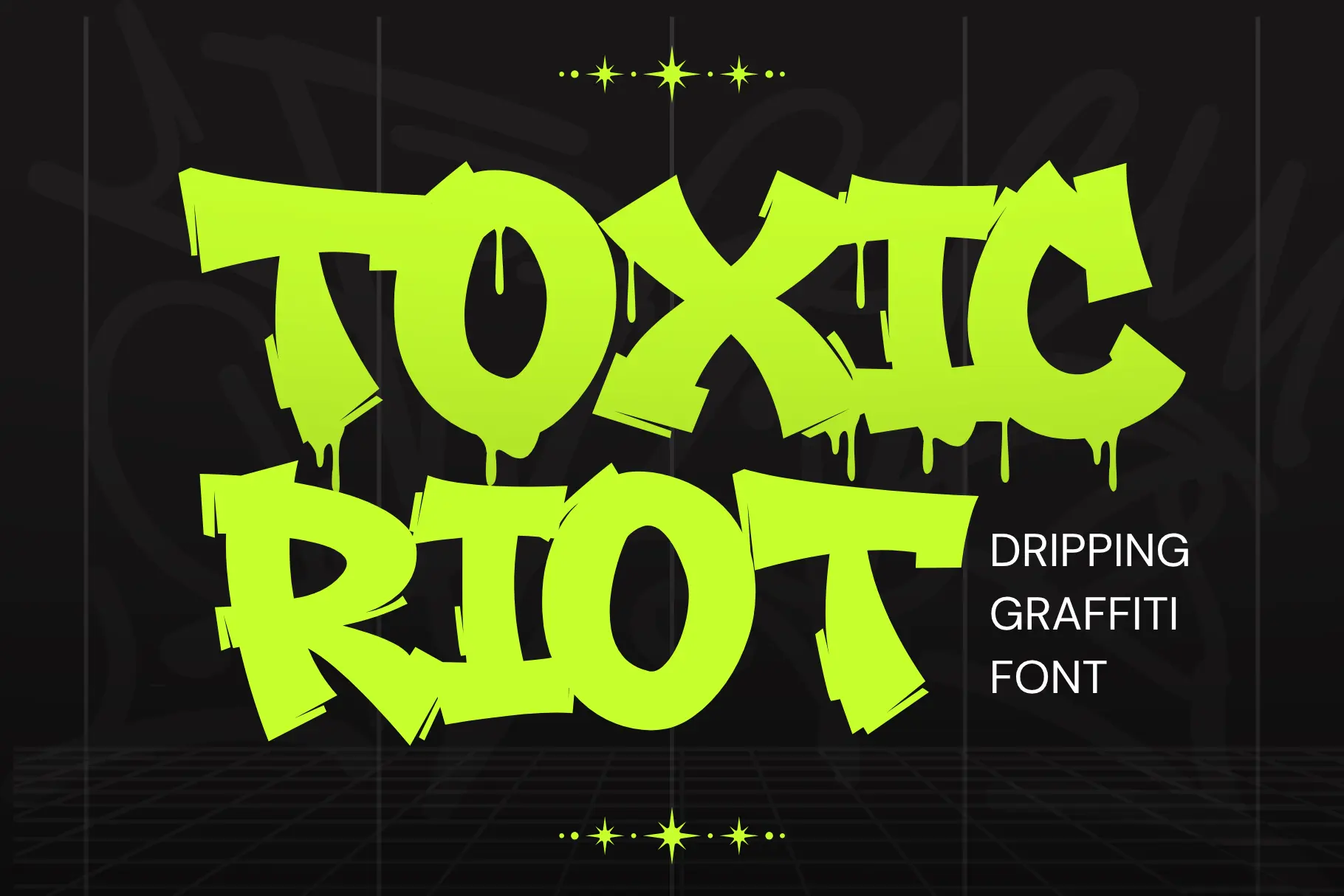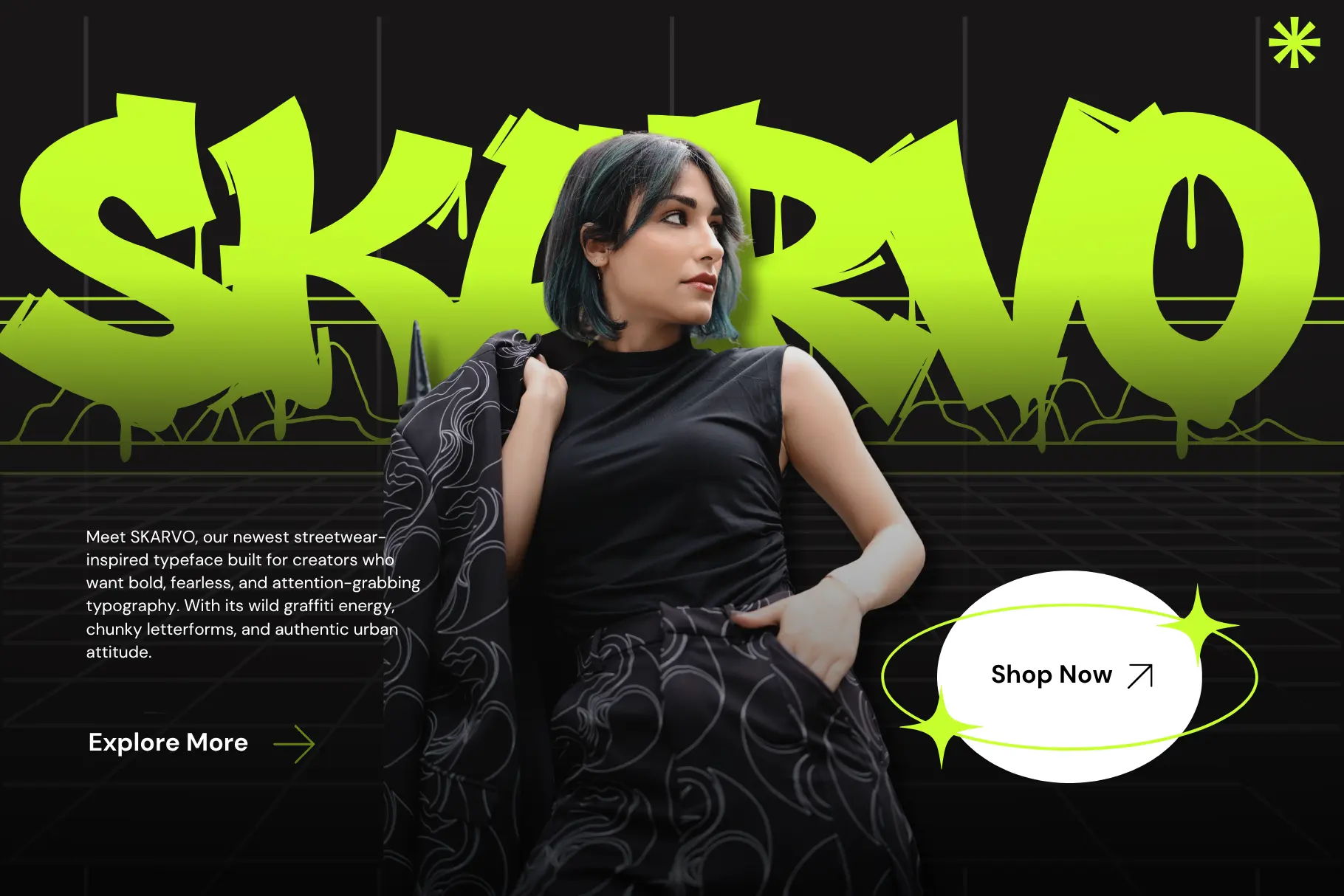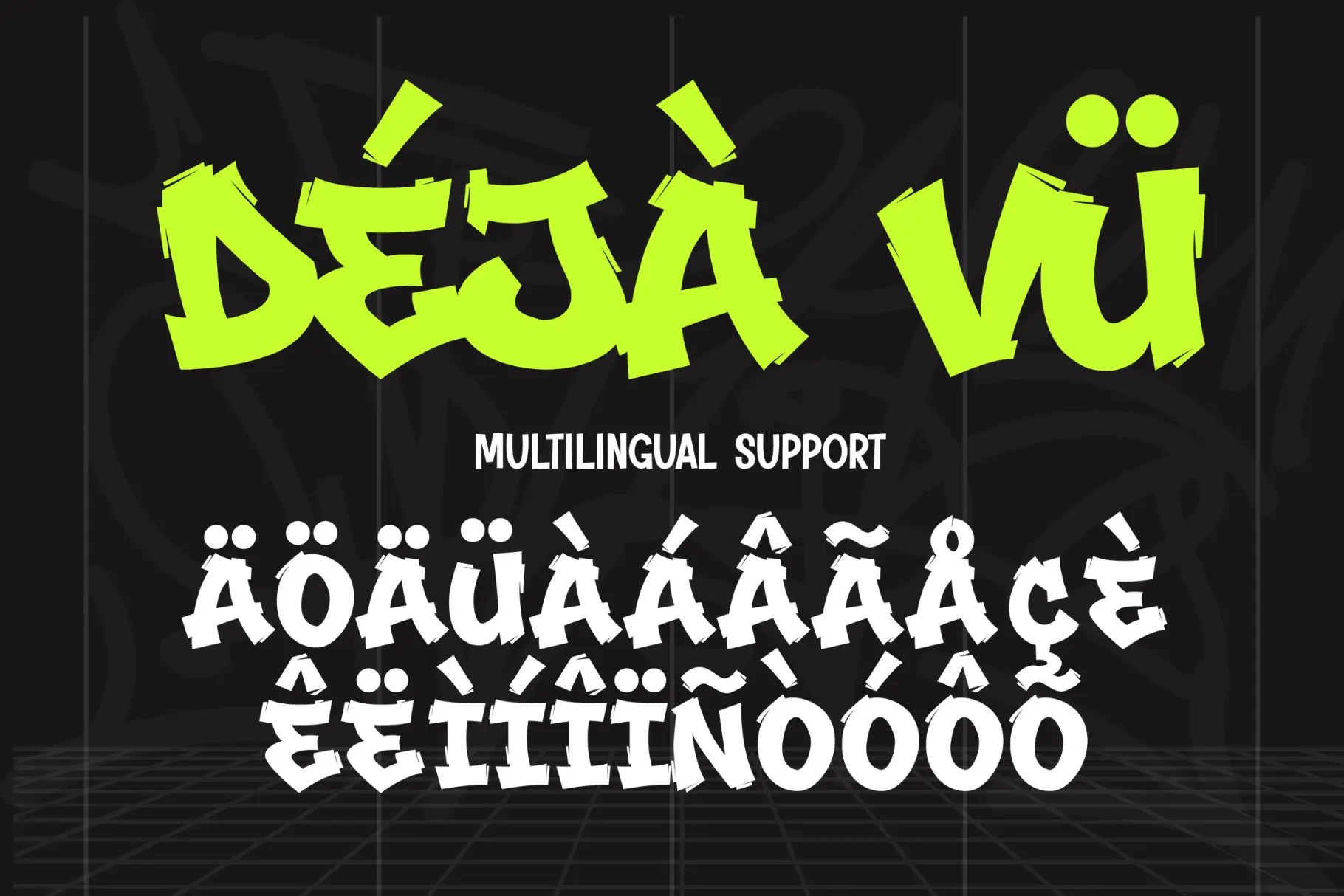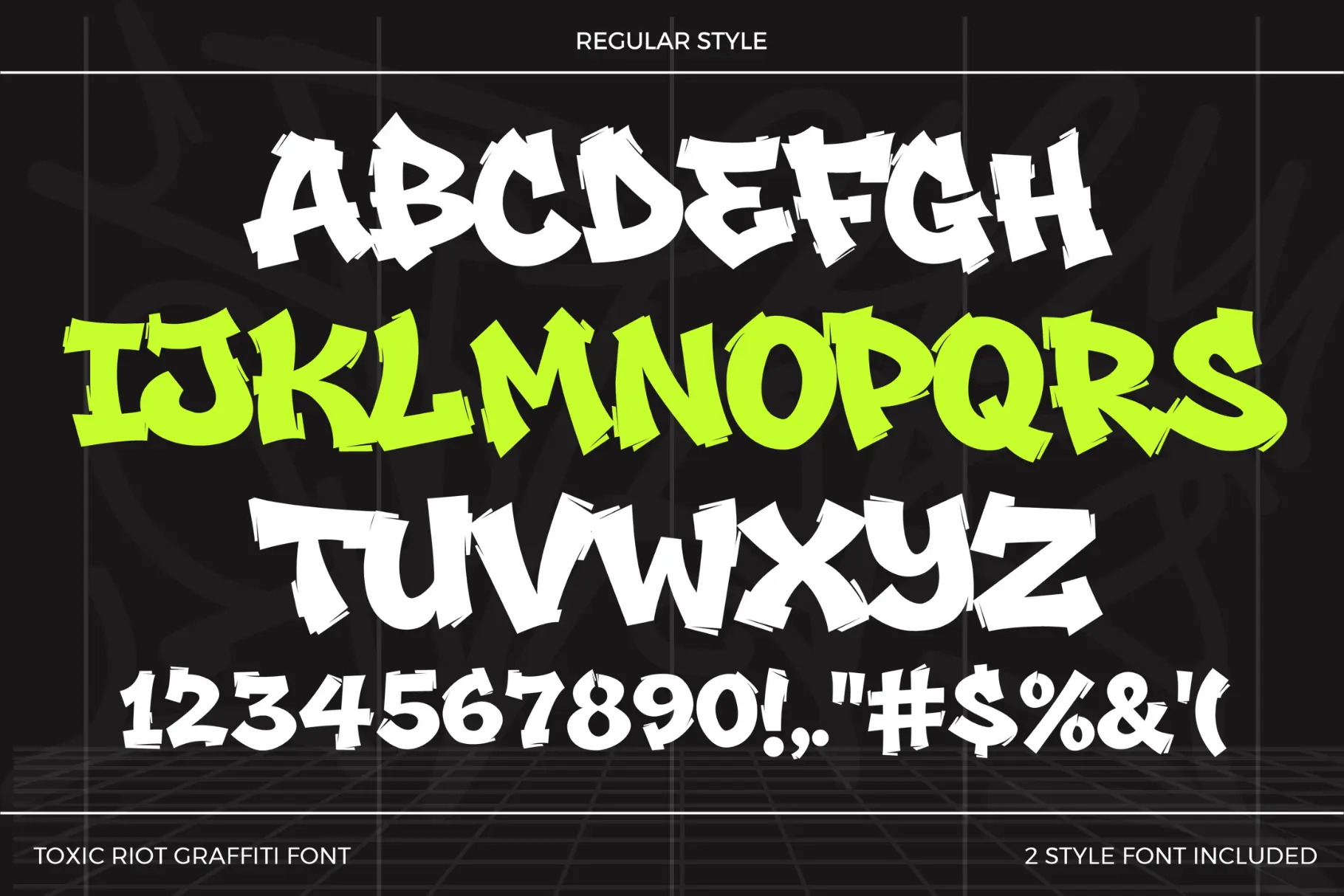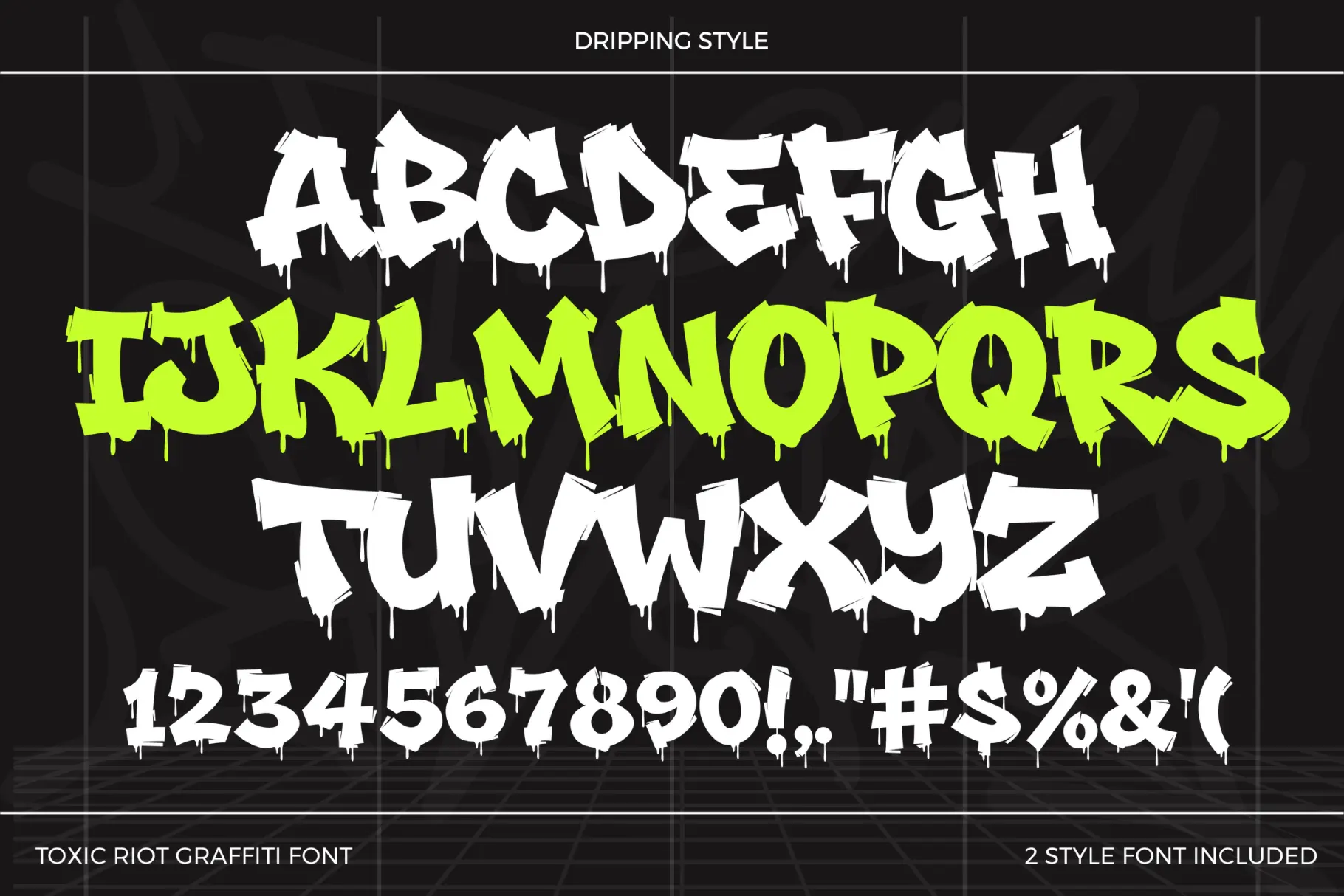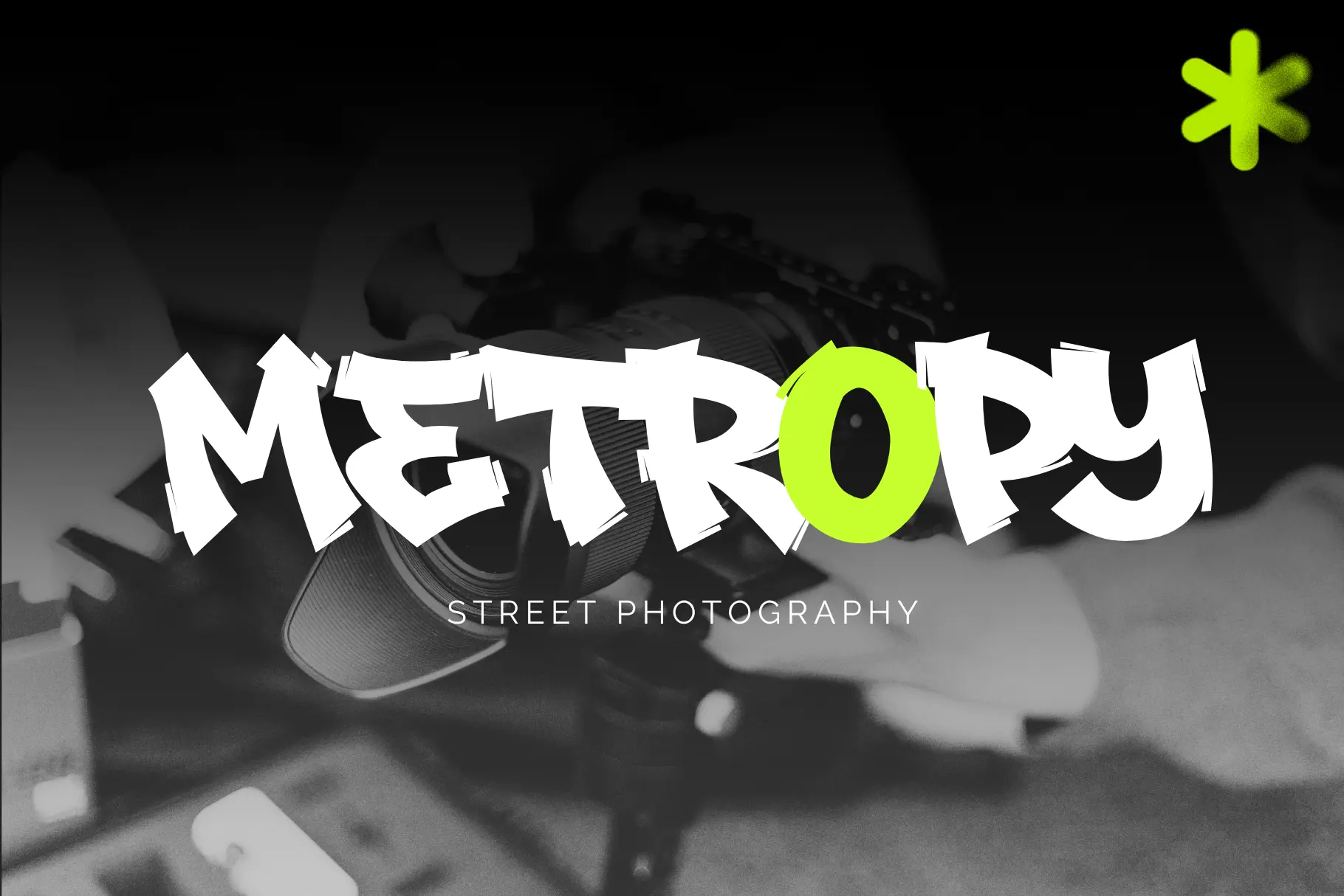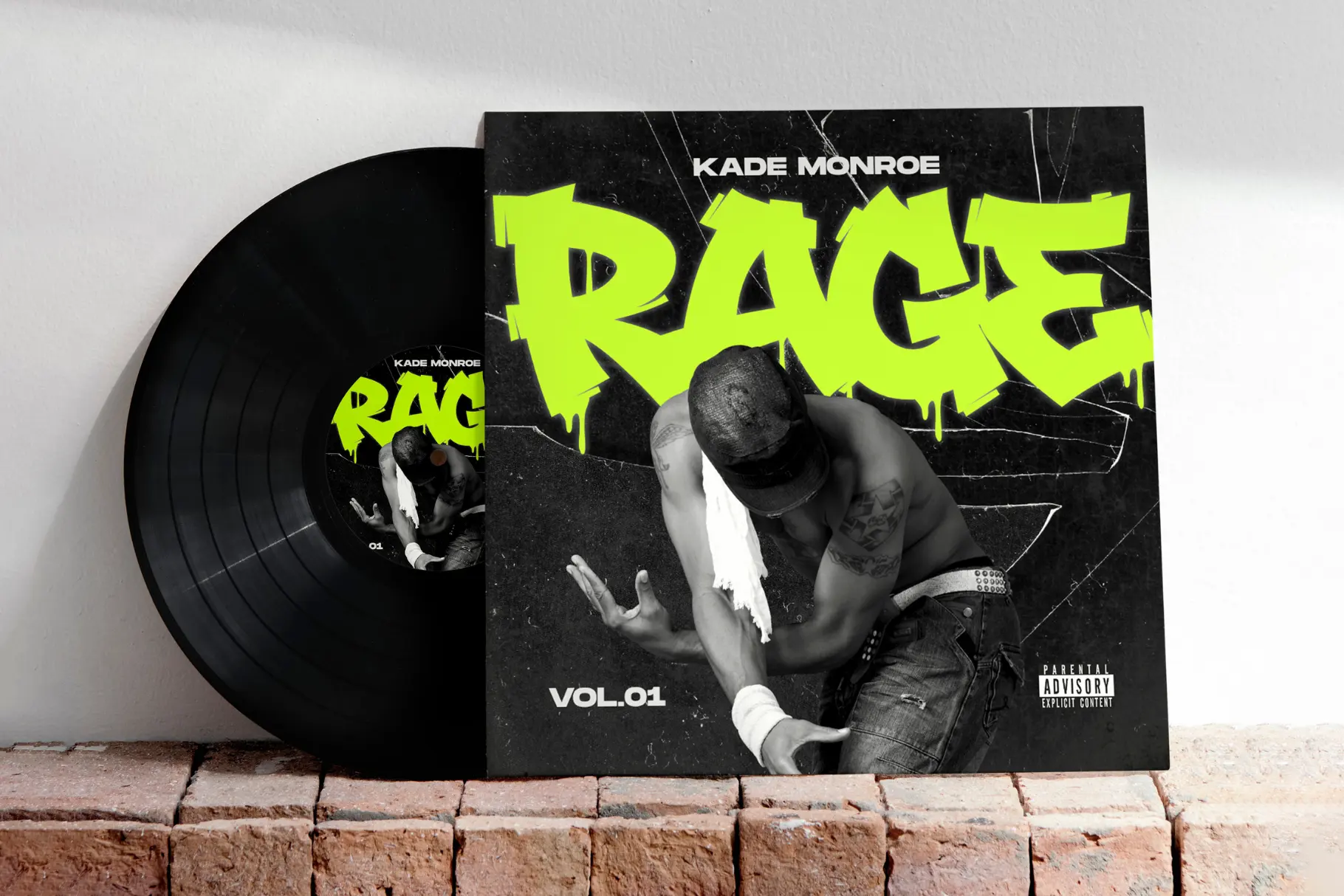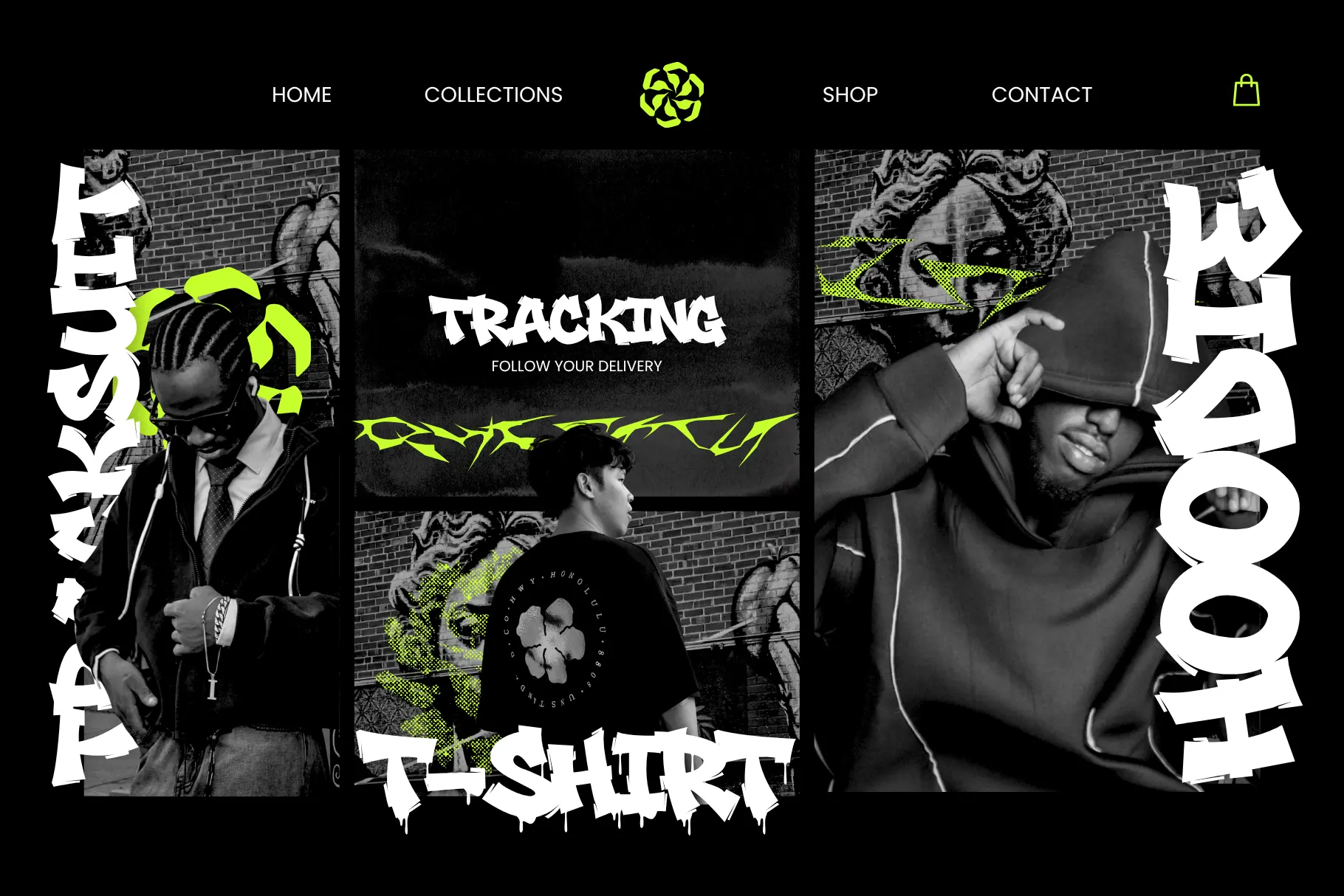
About Toxic Riot Graffiti Font
Toxic Riot is a bold and expressive graffiti font designed to capture the raw energy of street art with dramatic dripping details and fearless urban character. Inspired by authentic graffiti walls, hip-hop culture, and underground lettering, this dripping graffiti font transforms ordinary typography into bold visual statements. Whether you’re designing streetwear collections, music artwork, gaming graphics, posters, or social media campaigns, Toxic Riot graffiti font delivers an aggressive style that instantly commands attention.
Built for designers who want typography with attitude, Toxic Riot combines thick letterforms with natural paint drips to create a unique urban graffiti font that feels energetic, rebellious, and unmistakably authentic. Every character is crafted to evoke the spirit of graffiti culture while remaining highly readable for professional design work.
Unlike ordinary display fonts, Toxic Riot graffiti font embraces the imperfect beauty of real spray-painted lettering. The dripping elements create movement and texture, giving every word a handcrafted appearance that feels alive and dynamic. If you’re searching for a graffiti font that stands out in both digital and print projects, Toxic Riot is built to exceed expectations.
A Dripping Graffiti Font Inspired by Street Culture
Street art has always been a symbol of freedom, creativity, and bold self-expression. Toxic Riot graffiti font channels that same energy into a professional typeface designed for today’s creators. Every letter reflects the influence of authentic graffiti pieces, combining bold outlines with dripping paint effects that create a striking urban aesthetic.
This dripping graffiti font balances artistic expression with practical usability. While the dramatic drips add visual personality, the core letterforms remain clean enough to ensure readability across branding, posters, apparel, and promotional graphics.
Whether you’re designing a music festival poster or launching a new streetwear collection, Toxic Riot gives your typography the authentic urban presence that modern creative projects demand.
Bold Letterforms with Authentic Dripping Style
The defining feature of Toxic Riot graffiti font is its expressive dripping style. The paint drips are carefully integrated into the typography, creating a realistic graffiti appearance without overwhelming the letterforms.
This urban graffiti font delivers a strong visual identity thanks to its bold construction and energetic composition. Every character feels hand-painted, adding personality and movement to your layouts while maintaining professional quality.
Because of its thick shapes and balanced proportions, this graffiti display font performs exceptionally well in large headlines, branding projects, merchandise, album covers, YouTube thumbnails, and promotional campaigns.
Designed for Modern Urban Branding
Typography plays an important role in defining brand identity, especially within fashion, music, gaming, and entertainment industries. Toxic Riot graffiti font provides a memorable visual style that helps brands stand apart from ordinary typography.
This graffiti font is ideal for brands seeking a bold urban image. Whether you’re creating logos, apparel graphics, product packaging, event promotions, or social media content, Toxic Riot adds an unmistakable street-inspired personality.
The aggressive yet polished appearance makes this dripping graffiti font suitable for both commercial branding and creative artwork, allowing designers to build visuals that are powerful, memorable, and authentic.
Complete Character Set & Typography Features
Toxic Riot – Dripping Graffiti Font includes everything needed for professional typography and branding projects.
Uppercase Characters
Powerful uppercase letters inspired by authentic graffiti font culture with bold urban styling.
Multilingual Support
Supports multiple international languages, making this urban graffiti font suitable for global branding and multilingual creative projects.
Numbers & Punctuation
Includes a complete set of numbers and punctuation, allowing your graffiti font designs to remain consistent across every creative application.
- Authentic dripping graffiti font design
- Bold urban-inspired lettering
- Regular and Drip font styles included
- High readability for display typography
- Strong street art personality
- Professional uppercase characters
- Multilingual language support
- Complete numbers and punctuation
If you’re searching for a dripping graffiti font that combines authentic urban energy, professional versatility, and bold visual impact, Toxic Riot is the perfect choice. Add fearless street attitude to your typography and create designs that leave a lasting impression.